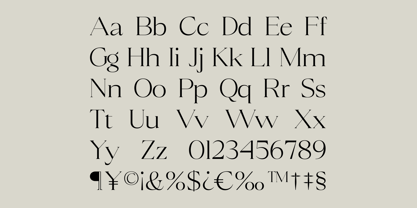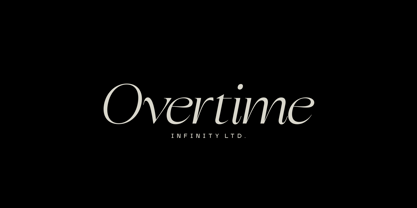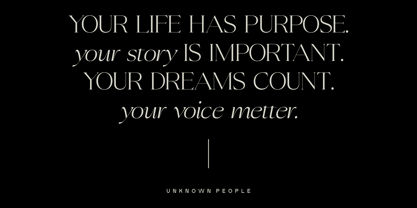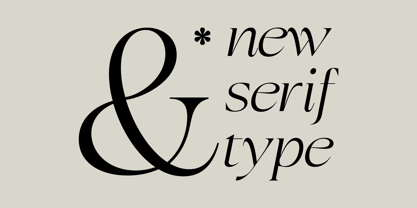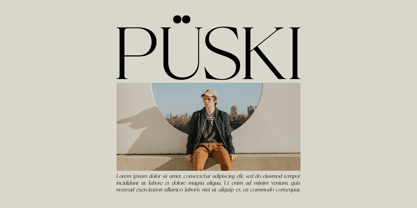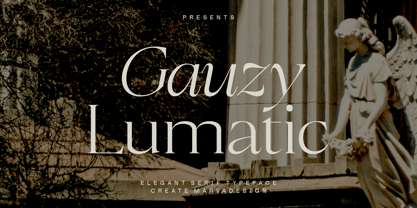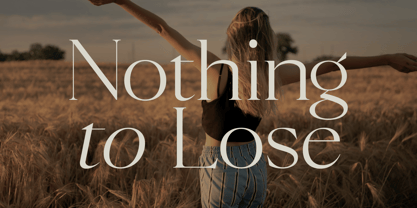
Gauzy Lumatic
by Marvadesign
The Gauzy Lumatic Font Family was designed by Febrie Setiawan and published by Marvadesign. Gauzy Lumatic contains 2 styles and family package options. More about this family
Gauzy Lumatic created by Marvadesign. This typeface has a high contrast between thick and thin strokes, giving it a sophisticated and elegant aesthetic. There are 2 styles in it, namely regular and italic. The letterform is characterized by smooth and flowing curves and sharp and smooth serifs that add a sense of refinement and luxury. This typeface is perfect for editorial design, branding, fashion, and high-end product packaging, which require a touch of elegance and uniqueness. The overall feel is classic and contemporary, making it versatile for a variety of high-end visual applications.
Designers: Febrie Setiawan
Foundry: Marvadesign